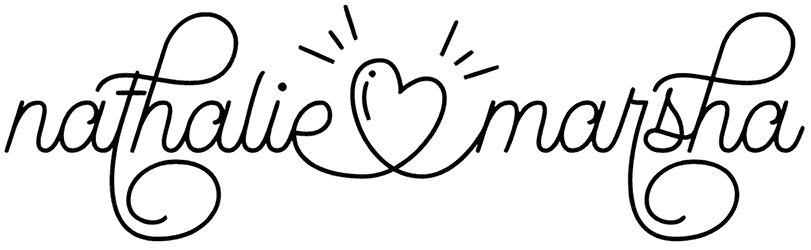
Nathalie Marsha Font
What do you think about a handwritten font with a real and daily vibe? Nathalie Marsha is the light and curvy font, and of course, with almost full characters, can evoke a lovely mood in your future design. As a Valentine font, Nathalie Marsha could be matched by a lot of projects, for example, product logos, invitations, greeting cards, and many more items.